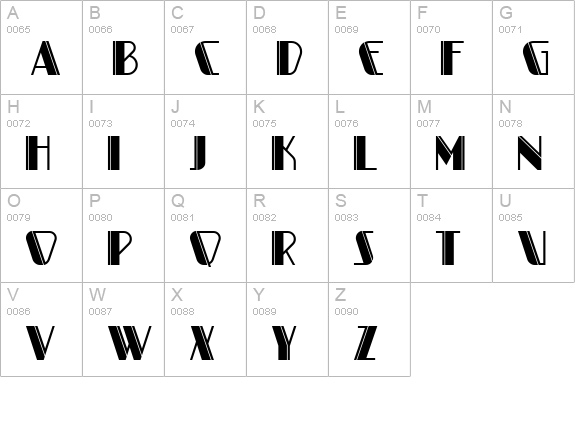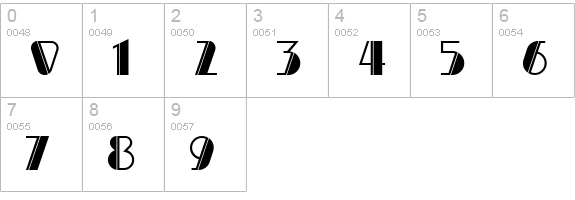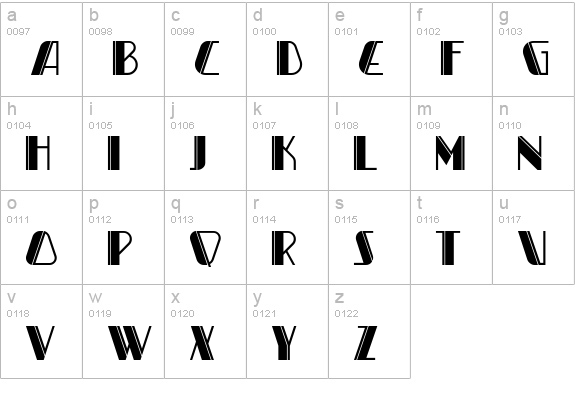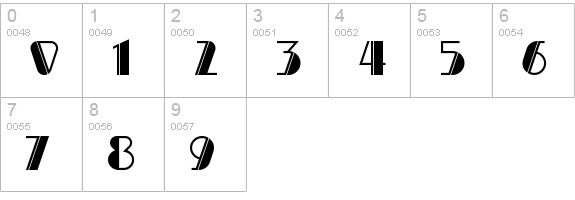
Duesenberg NF Font Details
Duesenberg NF font is a stunning display typeface that exudes elegance and sophistication. With its classic Art Deco-inspired design, this font is perfect for adding a touch of vintage charm to your projects. Its tall, elongated letterforms and intricate details make it a standout choice for headlines, logos, and other creative designs. What makes Duesenberg NF font even more special is that it is available for free download at FontsMarket.com. This means you can easily access this beautiful typeface and use it in your personal and commercial projects without any cost. Don't miss out on the opportunity to enhance your designs with the timeless beauty of Duesenberg NF font. Download it today and elevate your creations to the next level!